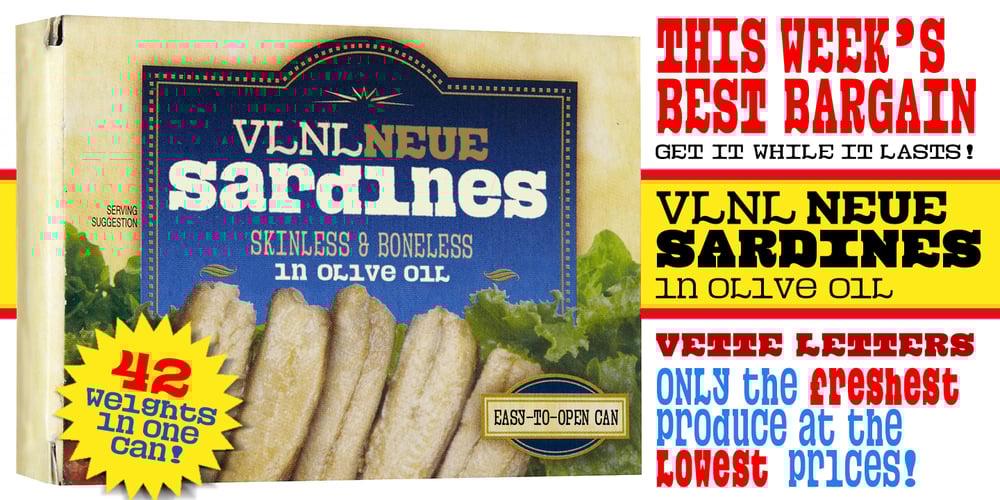
VLNL Neue Sardines Font Family was designed by Jacques Le Bailly and published by VetteLetters. VLNL Neue Sardines contains 42 styles and family package options. Sardines is a project by Jacques Le Bailly aka Baron von Fonthausen. It first saw the light as a student project for a monospaced font and eventually grew into Vette Letters’ largest font family. We saw its potential and expect it to be a million seller, just like our other typefaces. VLNL Sardines comes in 42 different variations, like rough and clean cuts, regular and condensed widths (condensed is the exactly half of the regular width). Sardines is an eclectic mash of classic curves and mathematical measurements, leaving a very distinct typographic flavor. While most of our type is market-fresh, this one comes out of the can, but it’s delicious nonetheless. And it’s great for adventurous BBQ-ing!